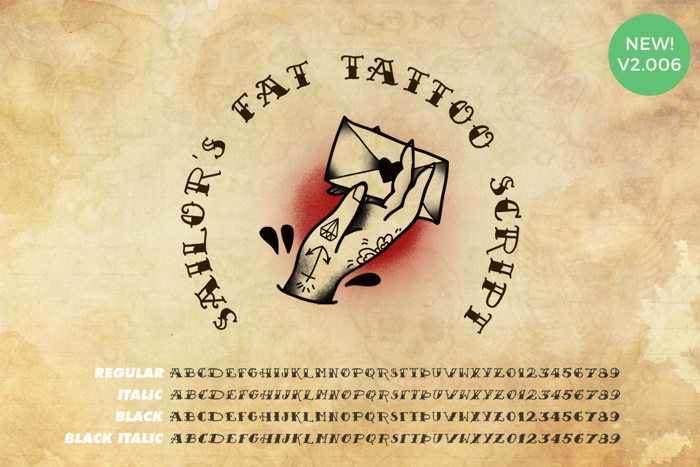
Sailor's Fat Tattoo Script Font
Sailor's Fat Tattoo Script is a hand-drawn nautical tattoo font. The typeface was originally developed to merge seamlessly into your traditional flash projects without looking fake or digitized.
A NEW UPDATE HAS ARRIVED! Version 2.006, July 2020
The July 2020 update to Sailor's Fat Tattoo Script includes a number of significant improvements:
- New digitally-drawn numbers, punctuation, special characters, and accents
- New spacing modifiers, and combining diacriticals
- Glyphs now have accents in Latin 1, Latin A, Latin B, and Latin Extended Additional
- Simple characters reduced to 90 glyphs in order to reduce file size by 75%
- Outlines optimized
- Black Italic style generated
- Total number of glyphs increased to 795